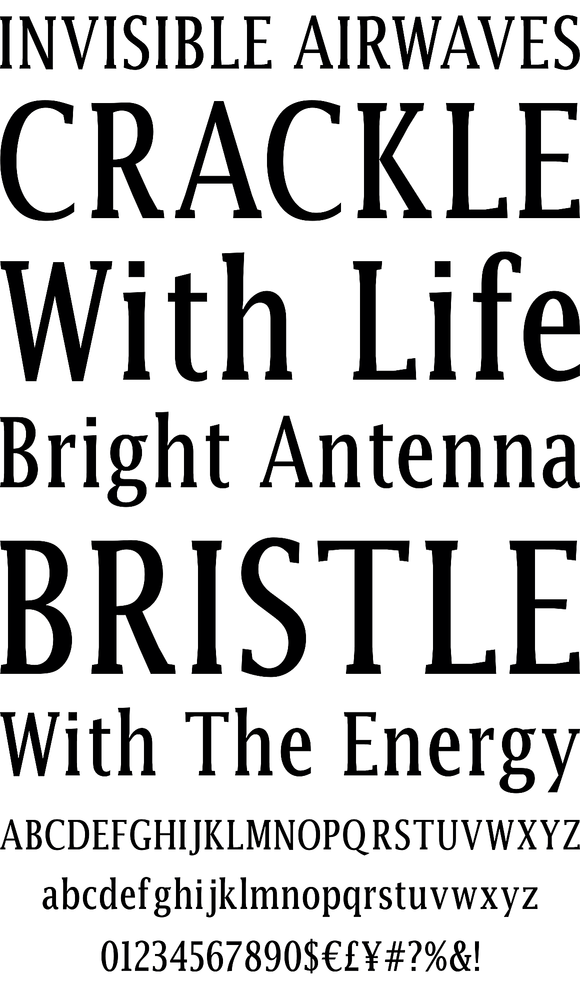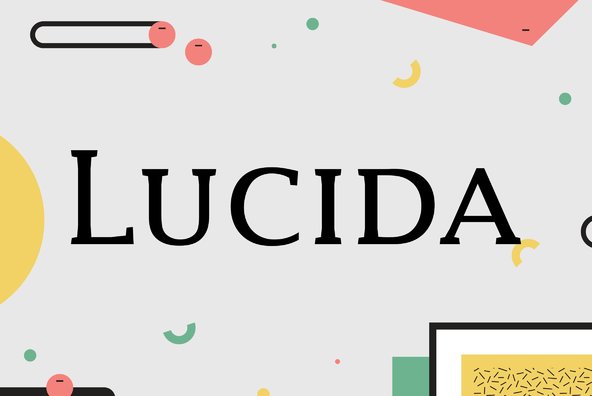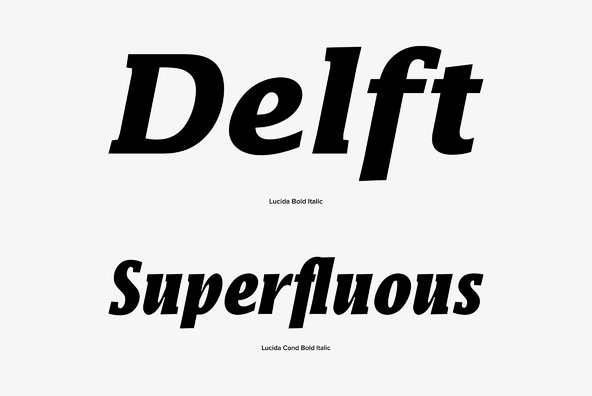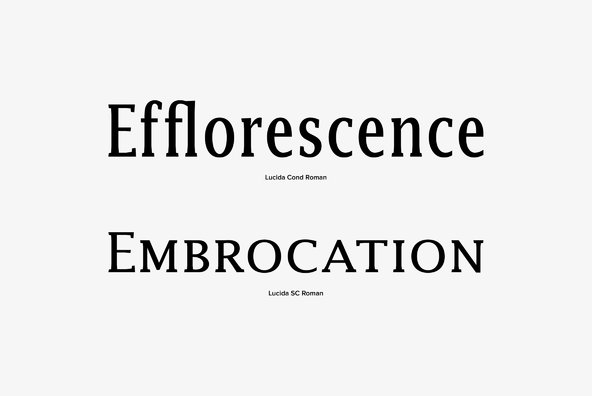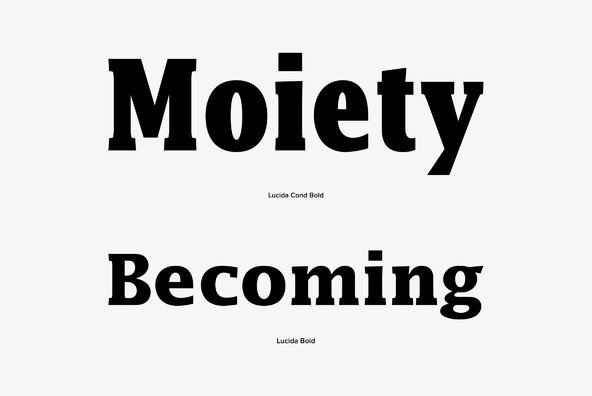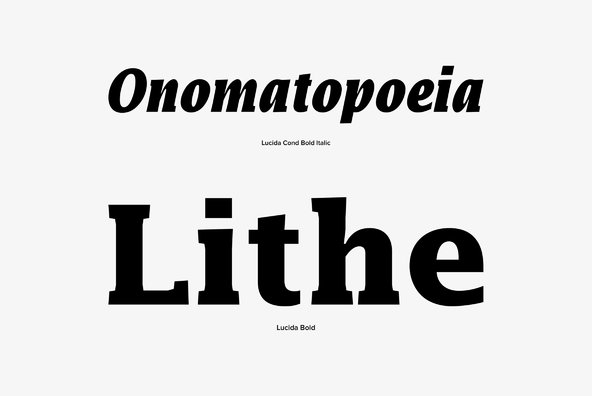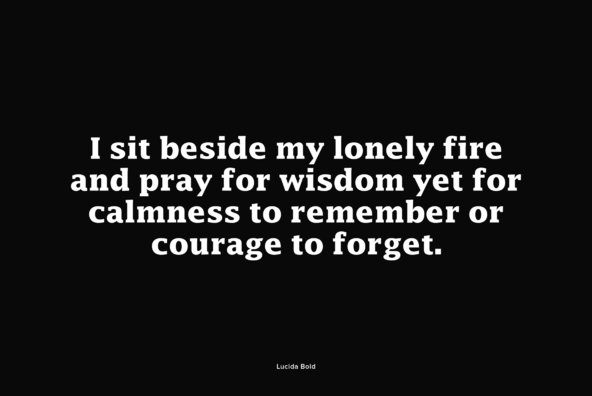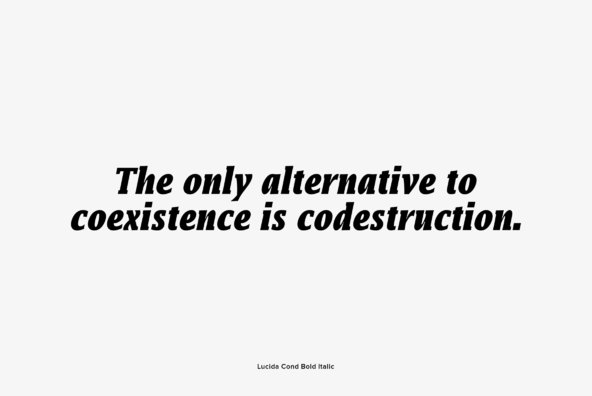
Lucida is an extended family of related typefaces designed by Charles Bigelow and Kris Holmes in 1985. Contains language support for West, East, Turkish, Baltic, and Romanian.